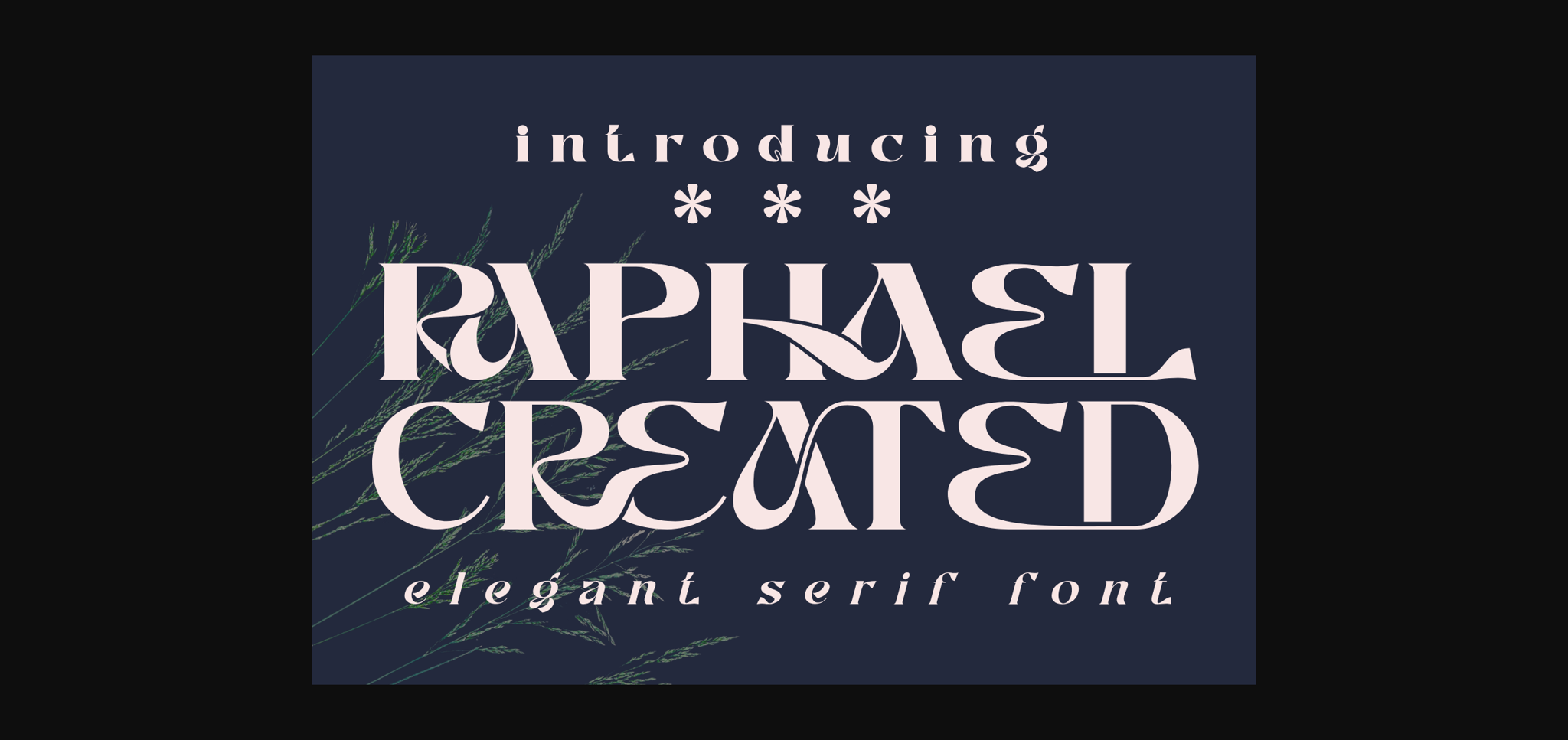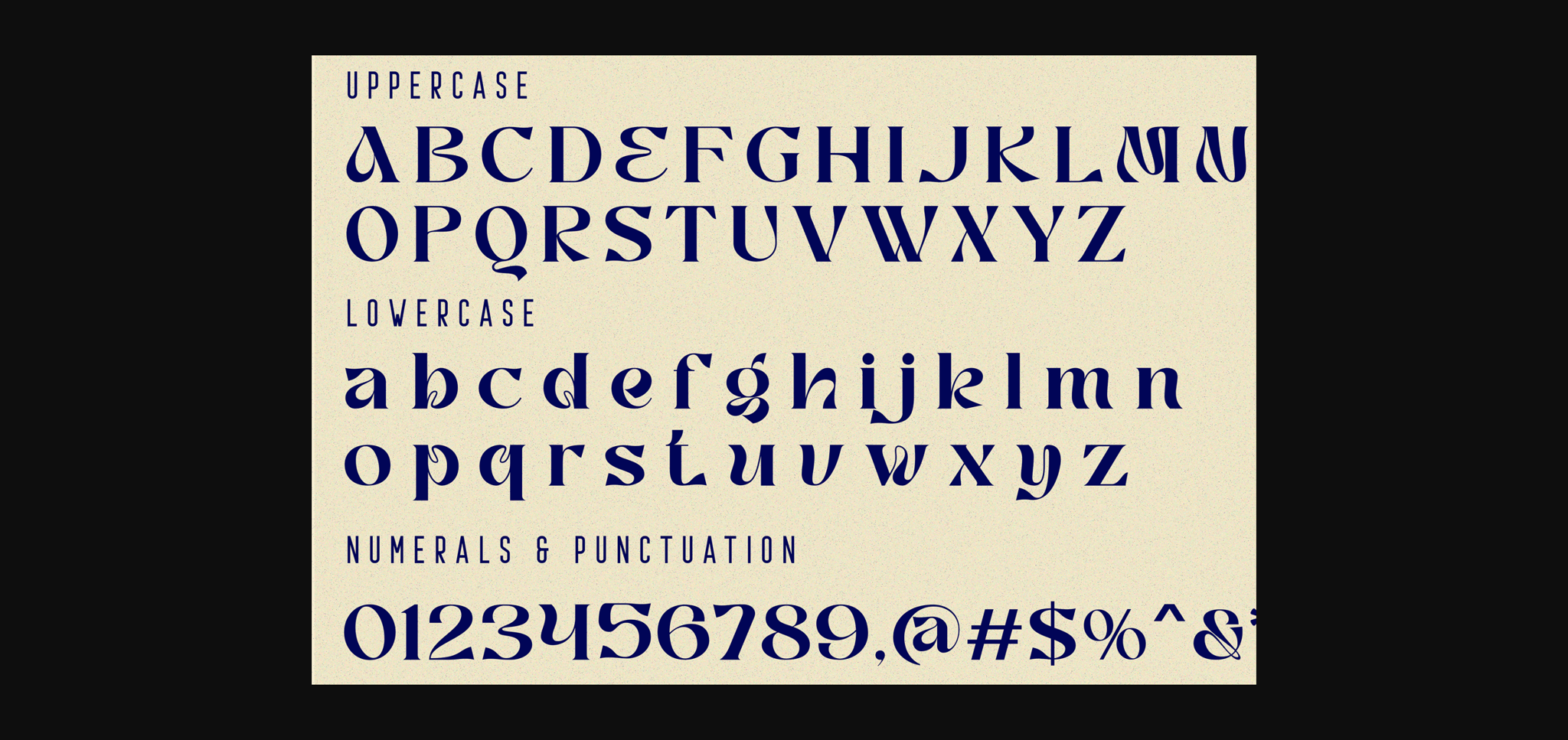
About Raphael Created Font
Raphael Created is a wide sans serif display font that has beautiful curves. Each end is made slightly rounded giving the impression of a comfortable and friendly. This font perfect for headline, sub headline ,custom logo,packaging, quote, invitations, watermark,social media posts, label, anything for your creativity and Satigof is perfect font if you want something new with your project, and you can pairing this font with the weight, its very satisfy. Happy creating!
RAPHAEL CREATED was built with OpenType features and includes 100 ligatures, alternate, numbers, punctuation, and it also supports other languages.